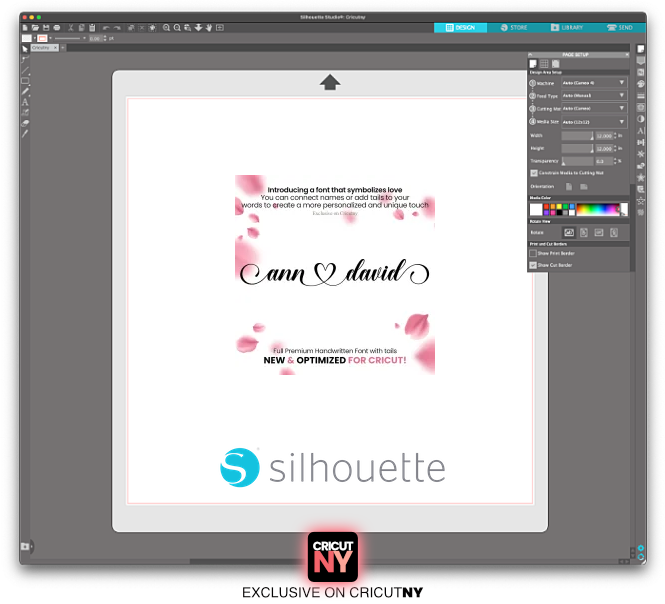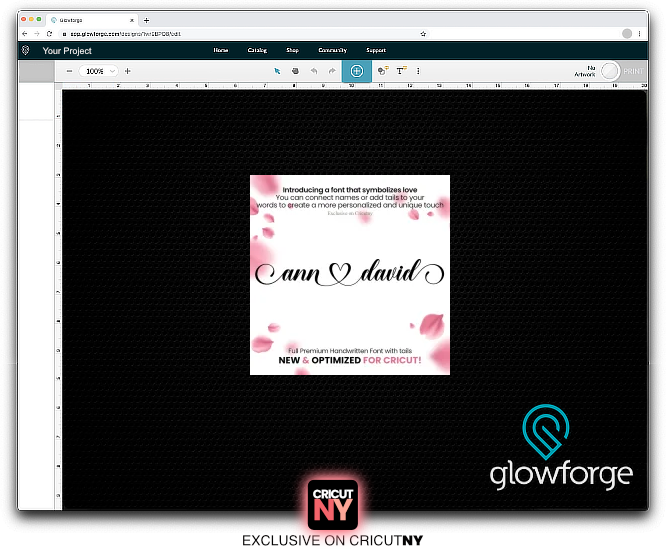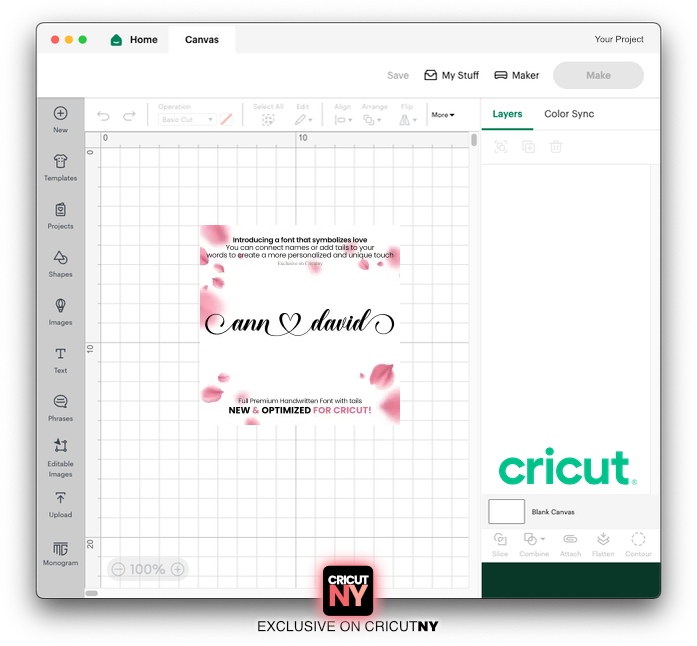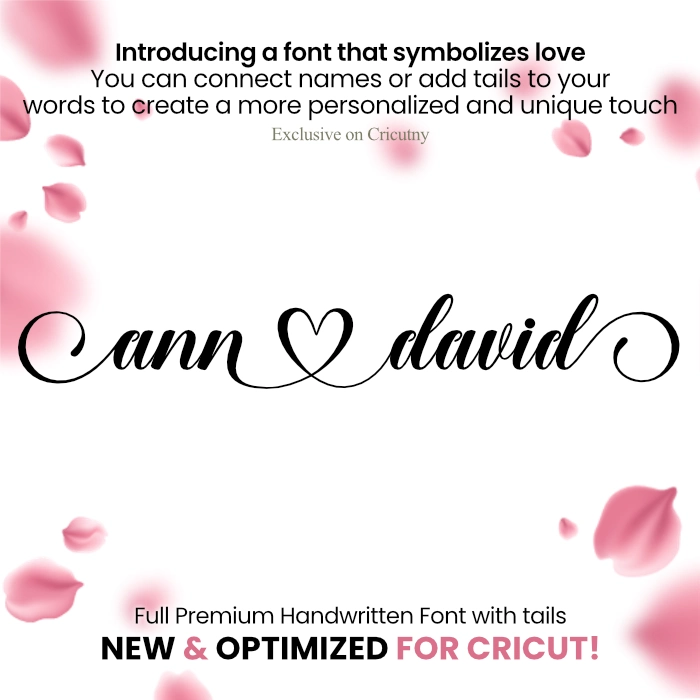
A beautiful font with heart in the middle
Are you looking to add a touch of romance to your project? Whether it’s a wedding invitation, a wedding sign, or a Valentine’s card, this font is the perfect solution. With the ability to connect two names or words with a heart, it will surely inspire love and warmth. The best part is that this font is fully optimized for cutting machines like Cricut design space, Silhouette, etc. So, with just a keyboard, you can type letters, hearts, and long-tail letters to create something beautiful and heartfelt.